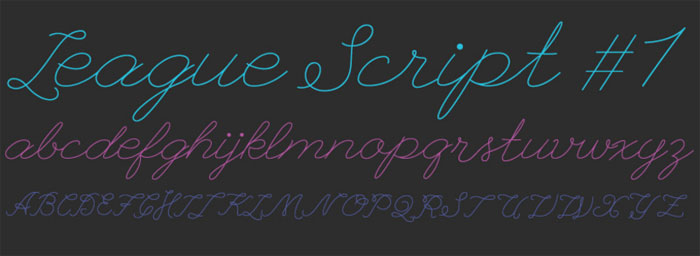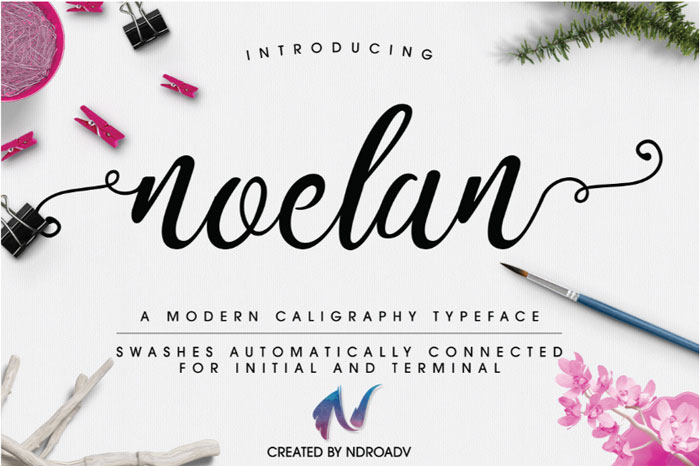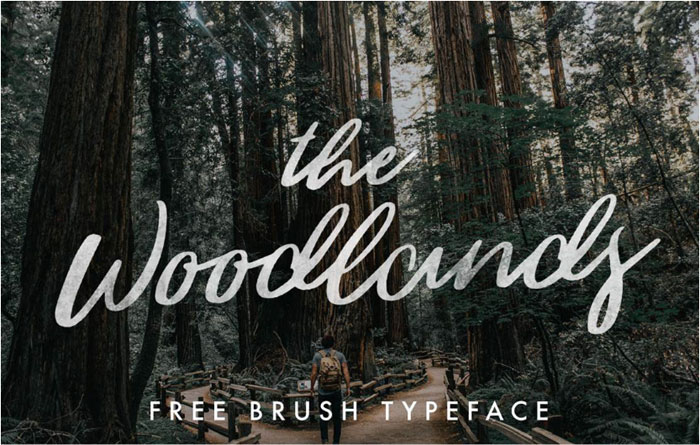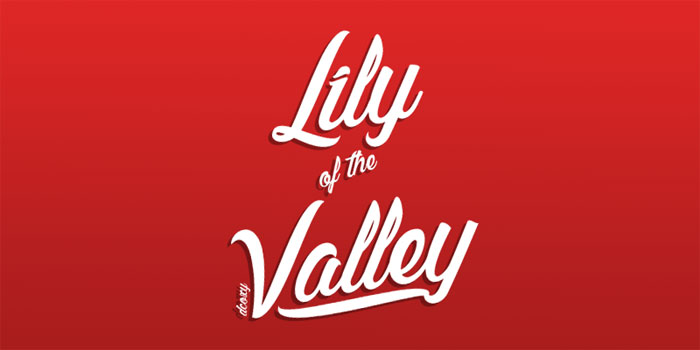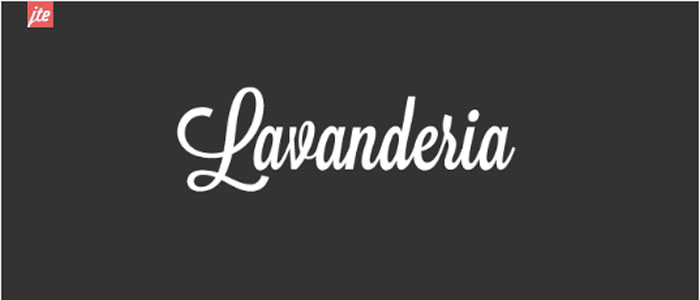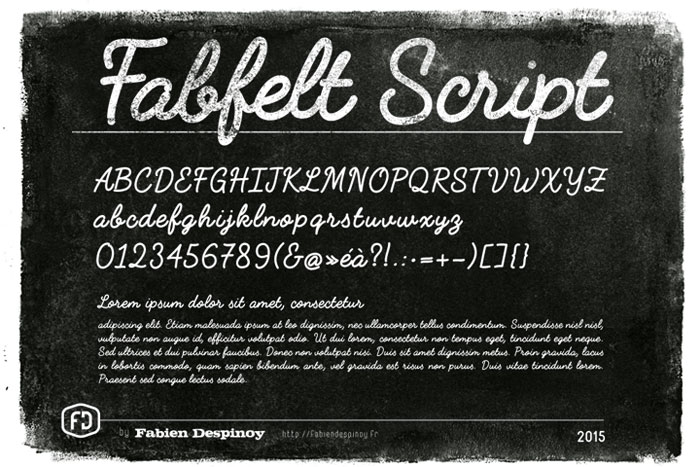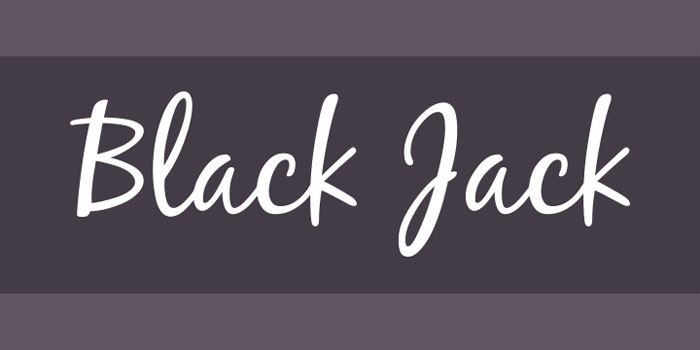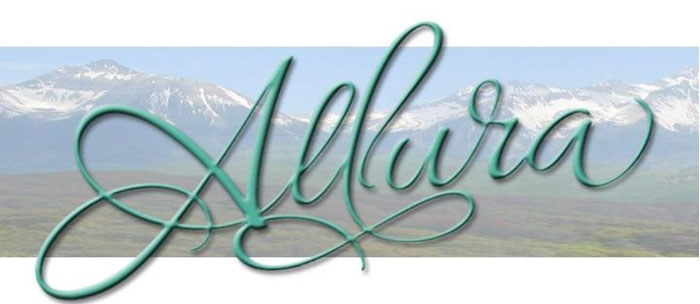
There’s something inherently captivating about a well-designed signature font. Imagine your branding materials not just speaking but singing your identity.
This article dives into signature font examples that will add that touch of elegance to your designs, making them unforgettable.
As you sift through countless fonts on Adobe Creative Cloud, Google Fonts, or Creative Market, it’s easy to get overwhelmed. Why are these specific fonts so impactful? How can they elevate a brand’s identity or a designer’s portfolio? These are questions worth exploring.
In this guide, we’ll unlock the secrets behind top-notch handwritten fonts, script fonts, and custom typography. You’ll discover how to choose the perfect font, where to find the best ones, and how to integrate them seamlessly into your projects.
By the end, you’ll not only have a curated list of exceptional fonts but also the know-how to make your designs stand out with a signature flourish. Ready to transform your creative projects? Dive in.
Which are the best signature font examples? Let’s check
Noelan – Download
Noelan is a free-course ornate font provided by Pixel Surplus that is also free to use by private and commercial clients. It is clean, modern, and very international, so you should consider it for mixing and matching styles.
King Basil – Download
King Basil and Mats Peter Fors and Missy Meyer’s flagship cursive font that caters well to a number of digital and print projects, among which posters, logos, stationery, and more. You can also get this font for free.
The Woodlands – Download
The Woodlands is another beautifully designed signature font. It was crafted by Jeremy Vessey who praises its calligraphy aesthetics as the leading reason for its popularity, and claims his work gives designers the freedom to create a lettering feel they will love. The Woodlands is free of charge for personal and commercial users, and is available to download on Behance.
La Sonnambula
La Sonnambula is commonly referred to as the best font for signatures, and for a good reason. The masterpiece font created by freelance designer Fernando Caro is handwritten and extended, and uses calligraphic text units to meet the needs of elegant and attractive titles.
Webmaster Haro, who is also known as an eclectic typographer, named the font after a Vincenzo Bellini opera from 1957, and inspired many creative designers to contribute to it with fresh ideas. As a result, the font has expanded significantly, and even features a Bitcoin symbol.
Lily of the Valley
Lily of the Valley is only one of famous Gregory Medina (Dcoxy)’s attractive signature fonts. I is free of charge for personal use, and comes with few adorable letterforms for lower and upper case characters. It is also enriched with symbols and special accents, and offers a suite of numbers for premium users.
Milkshake
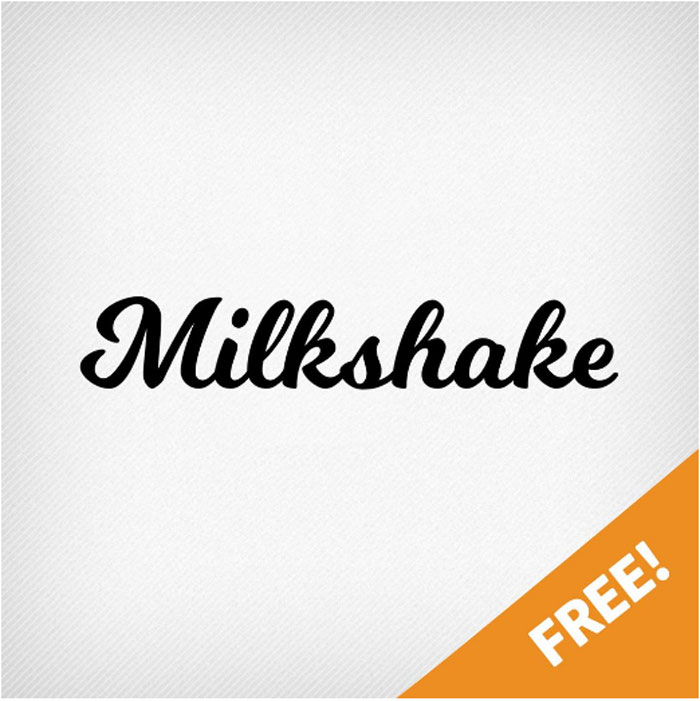
The credit for a font as substantial and appealing as Milkshake ought to be given to typographer Laura Worthington. As she reveals, it was exactly the roundness and thickness of this font that makes it sturdy, and moreover able to hold up against overwhelming and bold backgrounds.
She shared the font on Fair Goods, and recommends it for titling and headlining treatments.
Variane Script
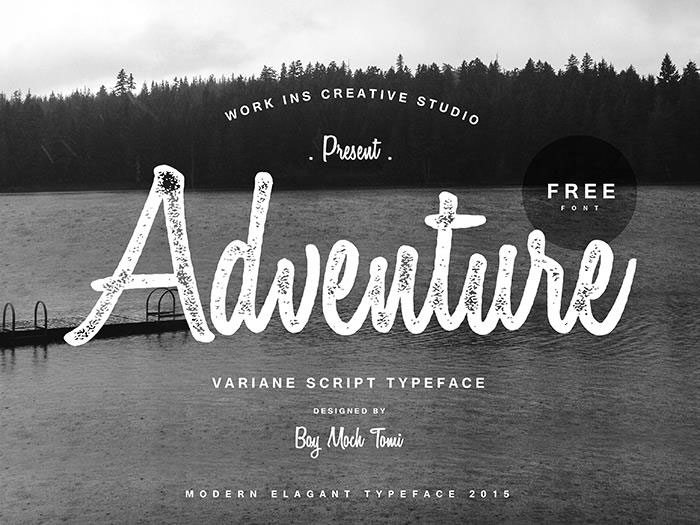
The elegant Variane script was drafted by Boy Moch Tomi, and reminds viewers of luxurious, stunning scripts from the classic design era that work perfectly in a variety of scenarios.
According to Tomi, complex fonts like Variane are difficult to find and afford, and that’s what inspired him to offer his work for free. He hopes that his fonts will be useful for everyone, and reminds prospective users to consider their vintage charm for a 20th century, truly American signage.
Lavanderia
Lavanderia is entirely James Edmondson product, and a charming typography solution influenced by San Francisco’s Mission District Laundromat windows. Its features are mostly open type (including the three weights), which means you can use it as a script font for al kinds of headings, but also body text.
Fabfelt Script
The signature font Fabfelt was designed by Frech artist Fabien Despinoy, whose main intention was to inject an industrial vibe. As he describes it, the Fabfelt script is retro and natural, and has no graininess.
Black Jack
As indicated by the name, Black Jack is an elegant and sophisticated signature logo solution executed by Ronna Penner. The font is cursive, and offered in one style only, but it nevertheless comprises of 177 characters, including lower case, upper case letters, and numbers.
Allura
Allura is a very stylish, yet easily readable autograph font, and leading script format offered by the Allura Pro Family. It is notably cursive, and often used as a display/invitation template.
Dancing Script
The name says it all – Dancing Script isn’t posh at all, but designer Pablo Impallari certainly worked his ways on making the script lively. You will have the impression that letters are changing and bouncing around, in particular the capitals whose size often goes below the baseline. It is commonly related to popular 50s scripts, and offers an informal and friendly look for your designs.